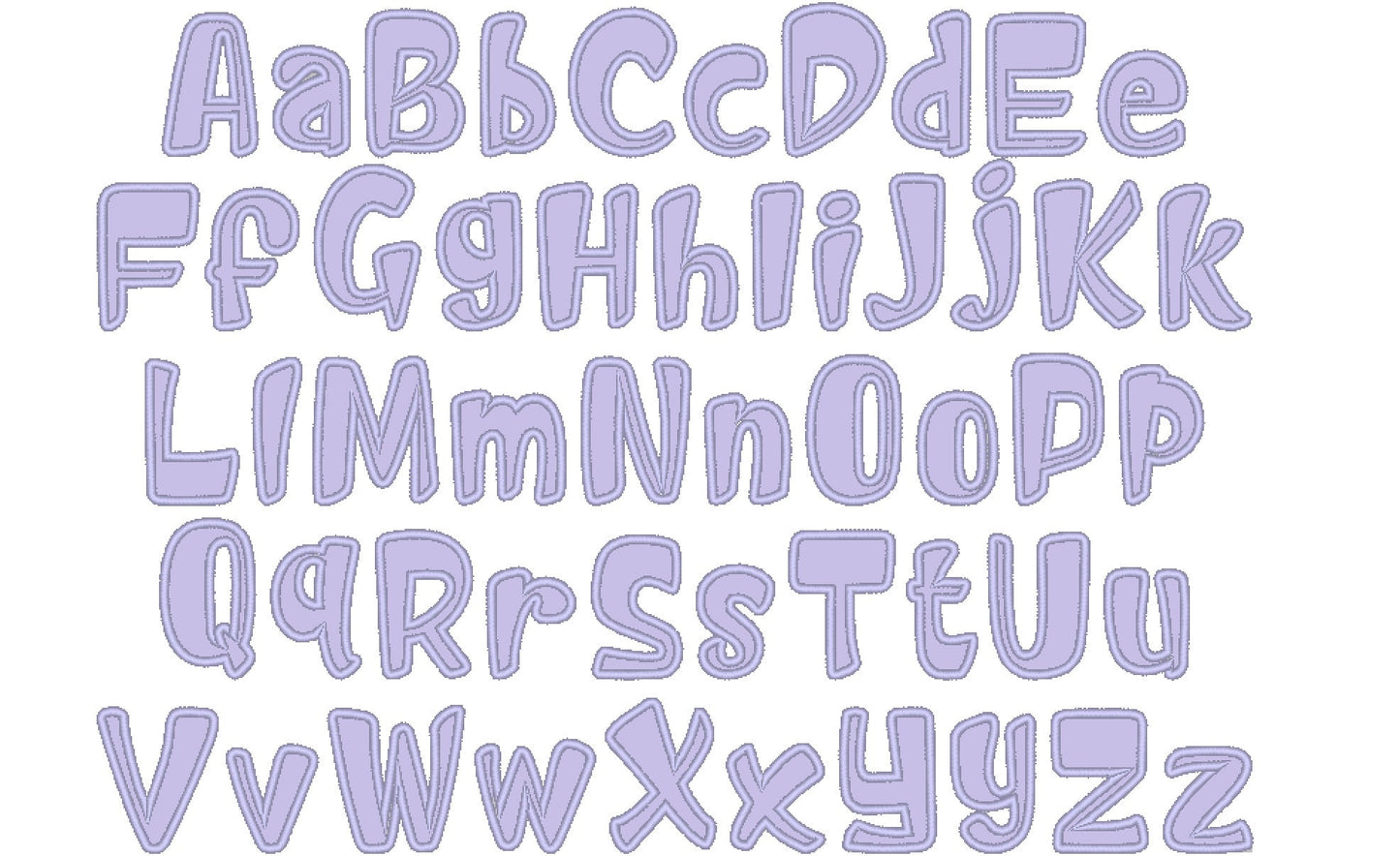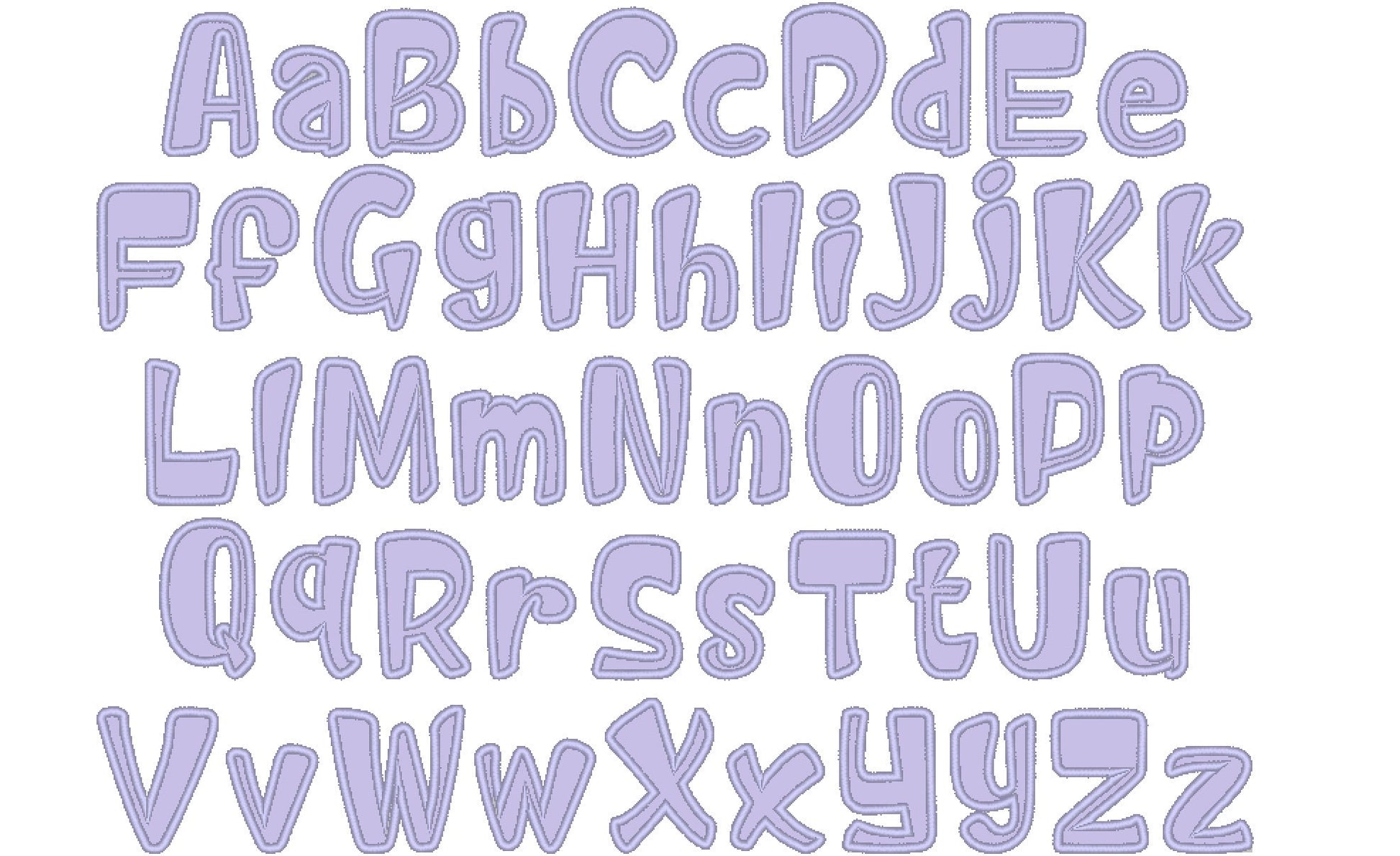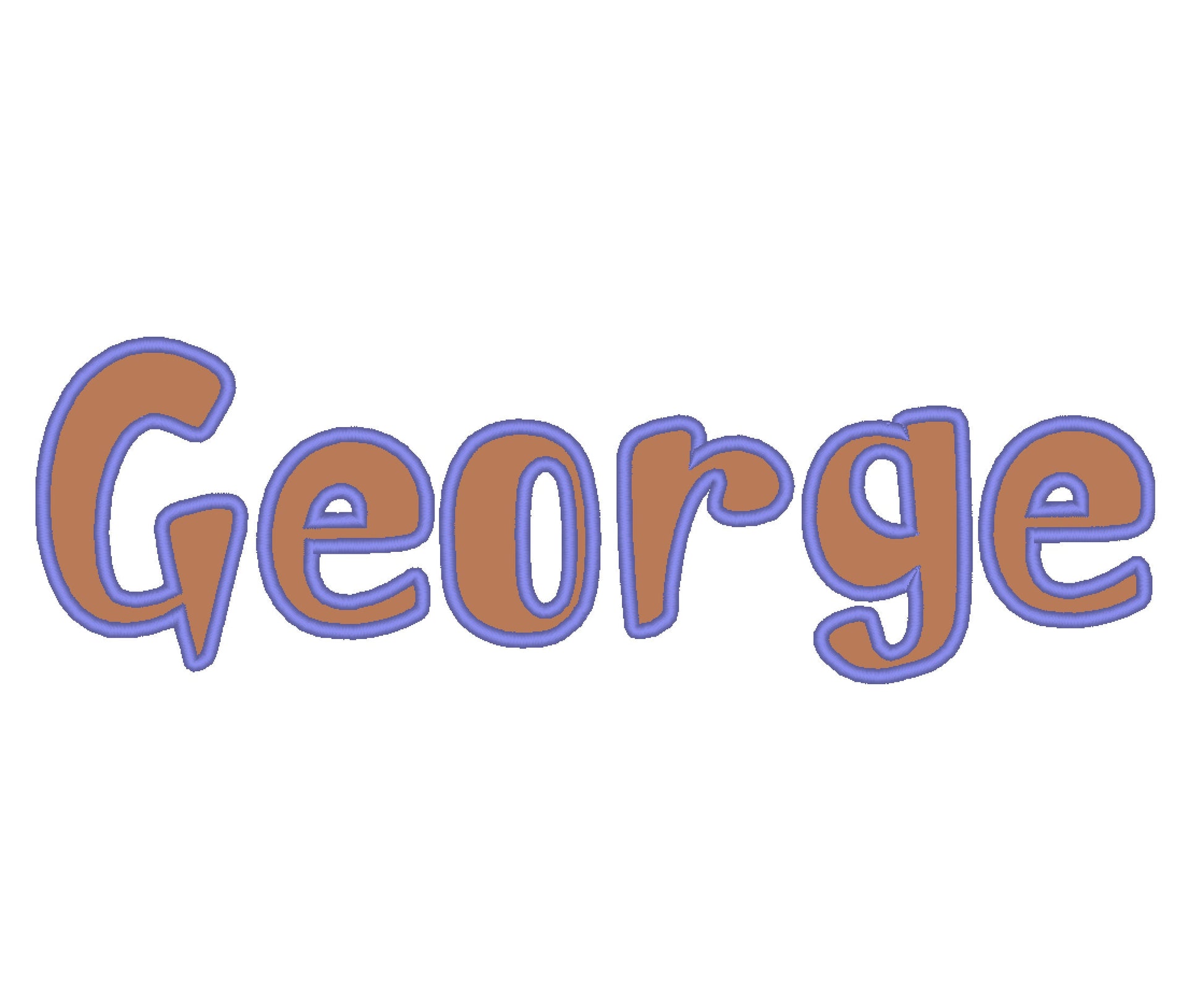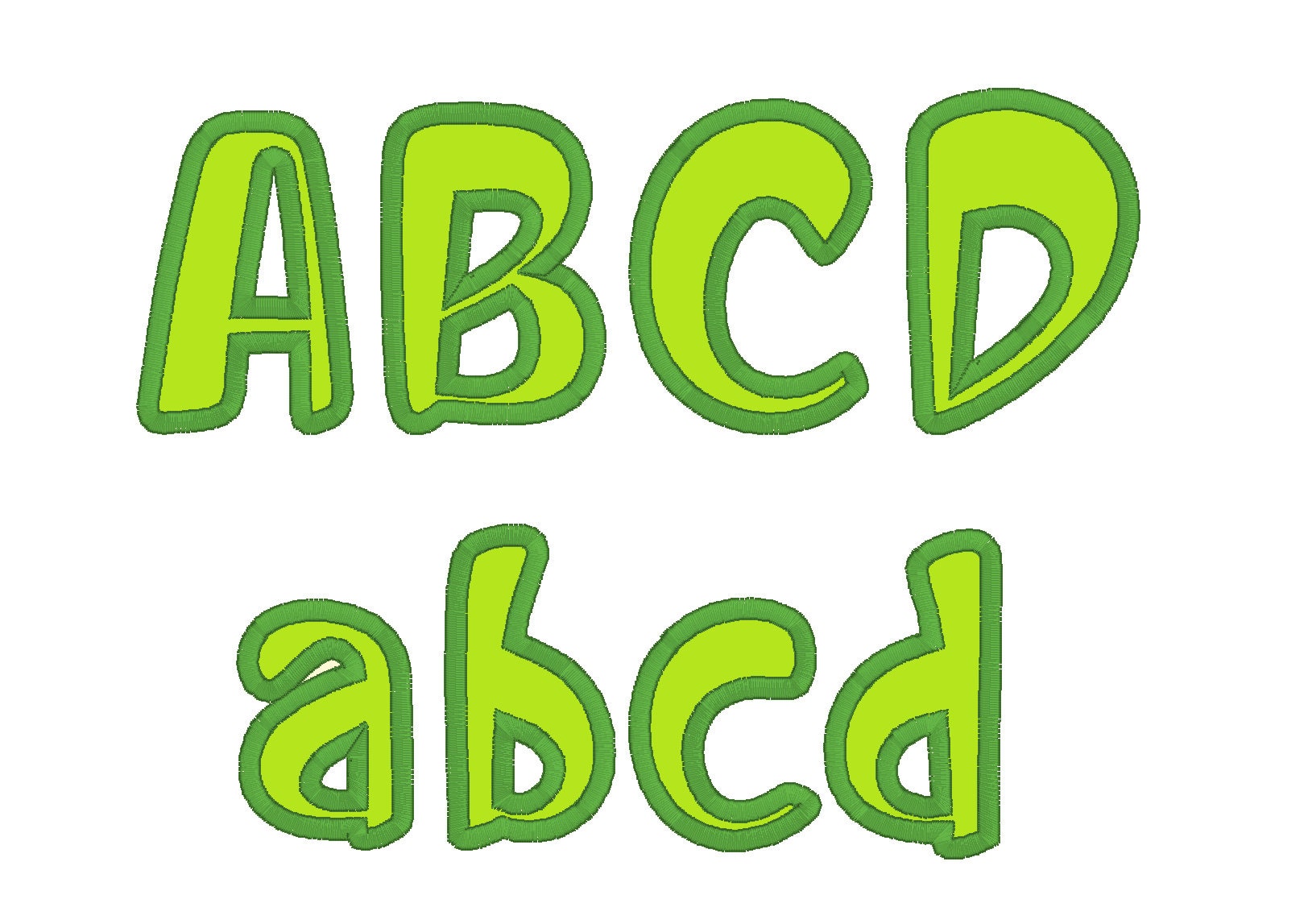
Kids Monogram Applique Font
Or click to open the linkAn applique monogram font for kids' names and initials. Great on shirts, pillows, blankets and baby gifts.
Every letter is stitched as an applique, so you can choose a fabric for each one. Uppercase and lowercase letters A to Z and punctuation in seven sizes: 2, 2.4, 2.9, 3.3, 3.7, 4.2 and 4.8 inches.
- Kids applique monogram font
- Uppercase and lowercase letters A to Z, punctuation